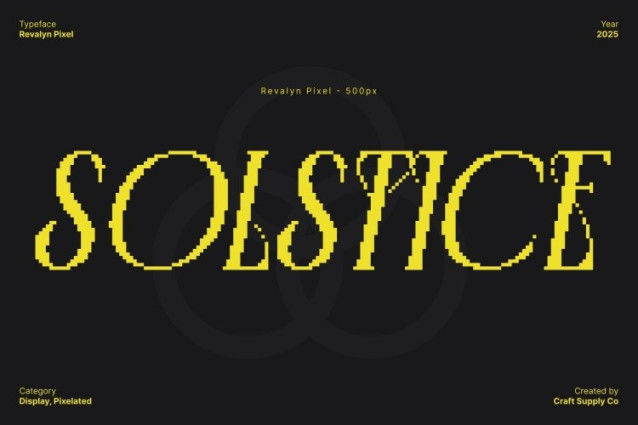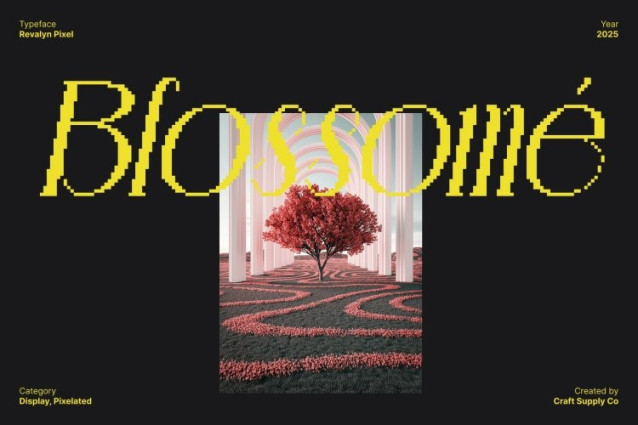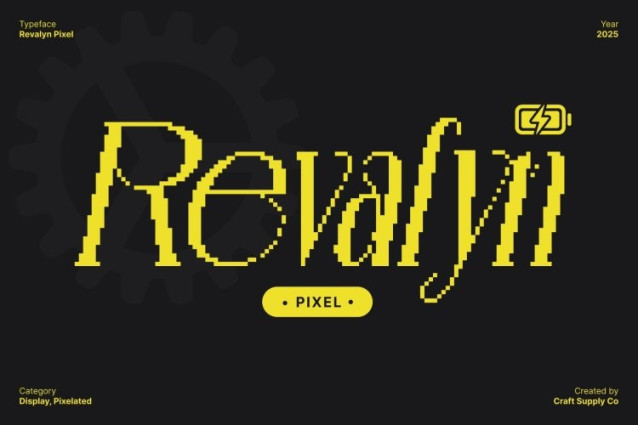
Revalyn Pixel Font
Revalyn Pixel Font This font brings a refreshing fusion of pixel-styled geometry and the graceful flow of Art Nouveau. Each character combines pixel precision with subtle decorative contours, creating a display font that feels both nostalgic and artistically expressive. This unique stylistic blend allows this font to stand out instantly, making it an excellent choice for designers seeking a font that merges vintage charm with modern creativity.
Retro Glow with Modern Aesthetic
Designed to capture the energy of retro visuals while embracing a contemporary feel, delivers a look that feels fresh yet familiar. Its modern pixel detailing adds structure and rhythm, while the Art Nouveau influence introduces elegance and personality. This combination brings depth and vibrancy, ensuring your designs radiate a distinctive glow that commands attention.
Perfect for Artistic and Retro-Inspired Design
The expressive personality of this font makes it ideal for projects that value creativity and playfulness. Use it for retro design themes, expressive posters, album covers, gallery promotions, or experimental art projects. Its pixel structure allows you to produce layouts full of character, while the decorative touches add an elevated, artistic finish.
Versatile for Branding and Visual Identity
Beyond artistic work, this font also shines in branding. Whether you’re building pixel-inspired brand identities or crafting designs that highlight digital nostalgia, this font provides the perfect balance of clarity, charm, and stylistic uniqueness. Its bold shapes and crafted pixel edges create memorable visuals ideal for logos, titles, merchandise, and other standout brand elements.